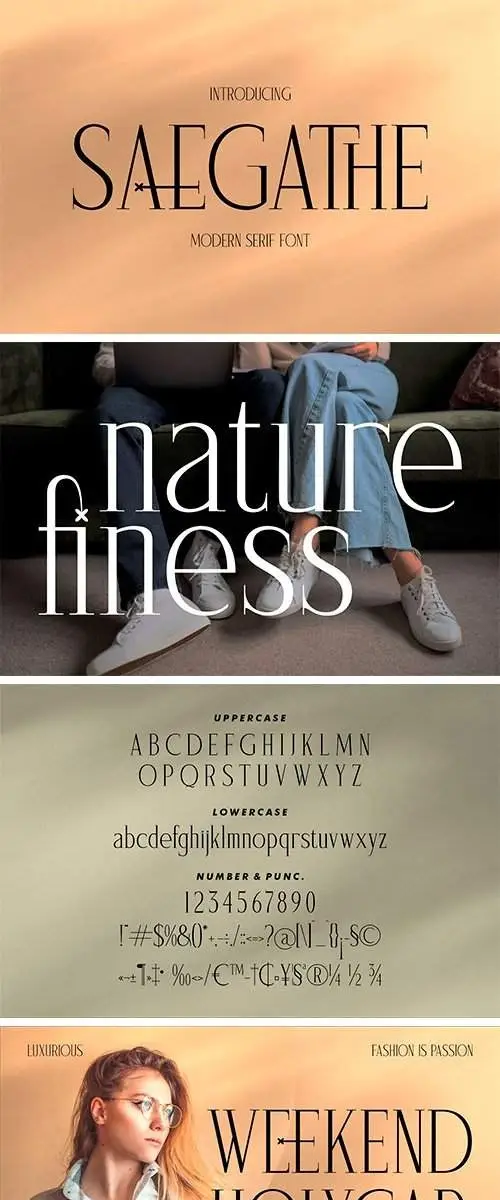
Saegathe Modern Serif Font
Proudly present Saegathe Typeface , created by Storytype, A serif modern and classic typeface that has own unique style & modern look